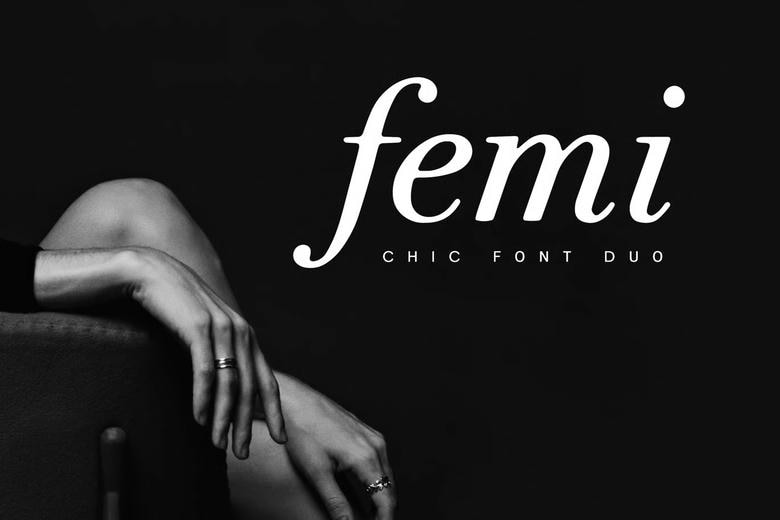
Femi Font Duo
Femi Chic is a feminine logo font duo made for elegant branding, boutique identities, beauty logos, fashion visuals, wedding stationery, packaging, editorials, and stylish social media graphics.
This font pair includes an elegant italic serif with graceful curves and a clean, minimal sans serif. The serif is great for logos, headlines, names, monograms, and statement text.
The sans serif works well for captions, brand details, packaging info, website text, and clean supporting typography. Used together, these fonts give your designs a soft, chic, and editorial feel.